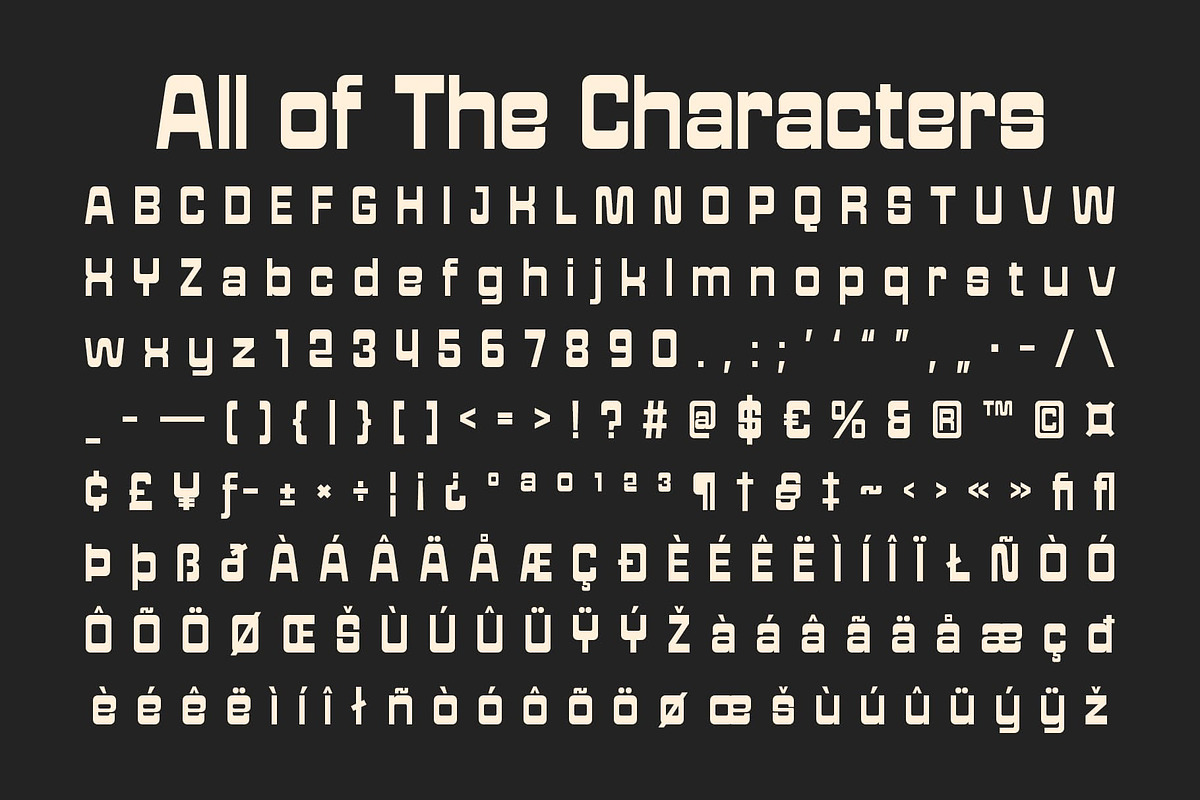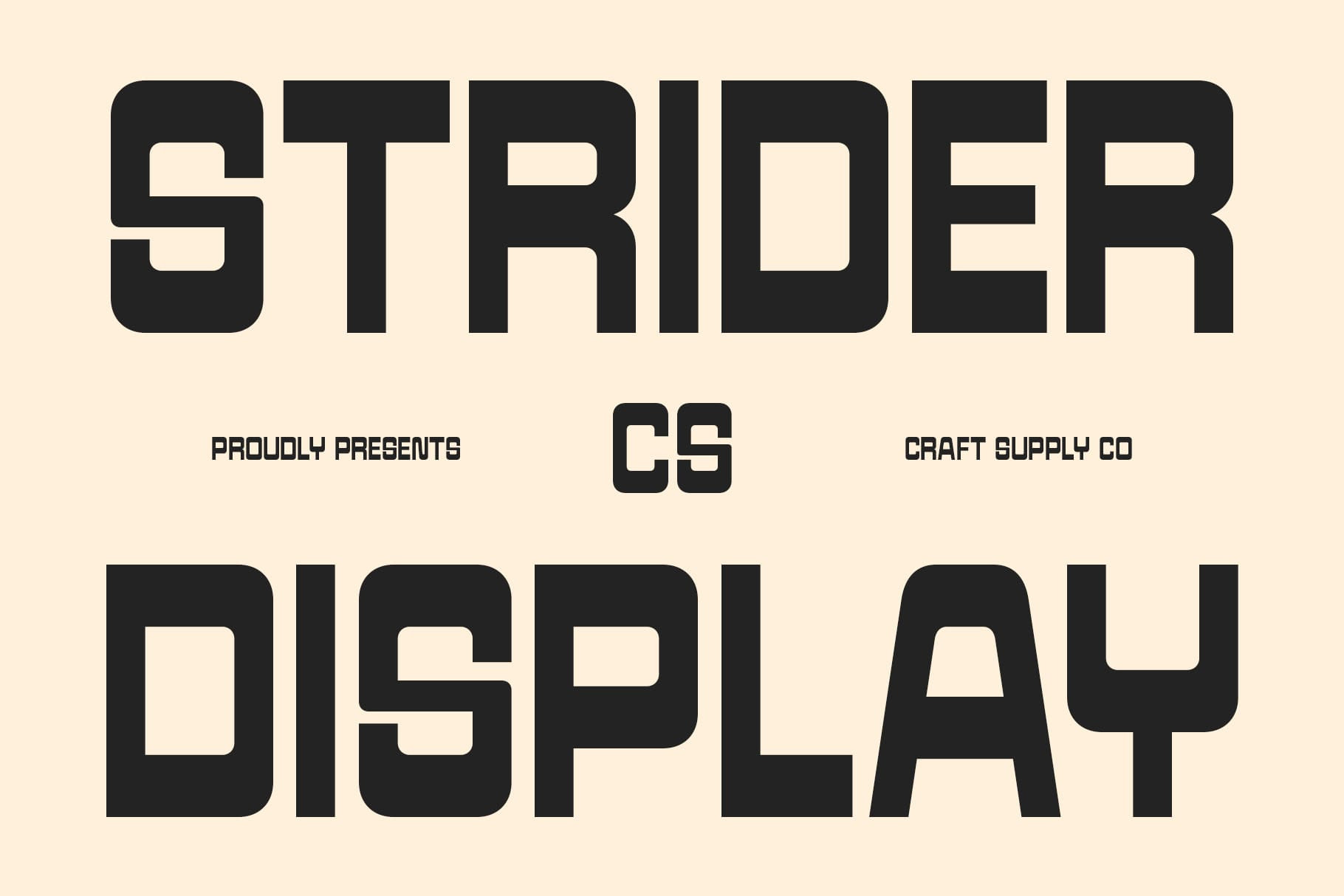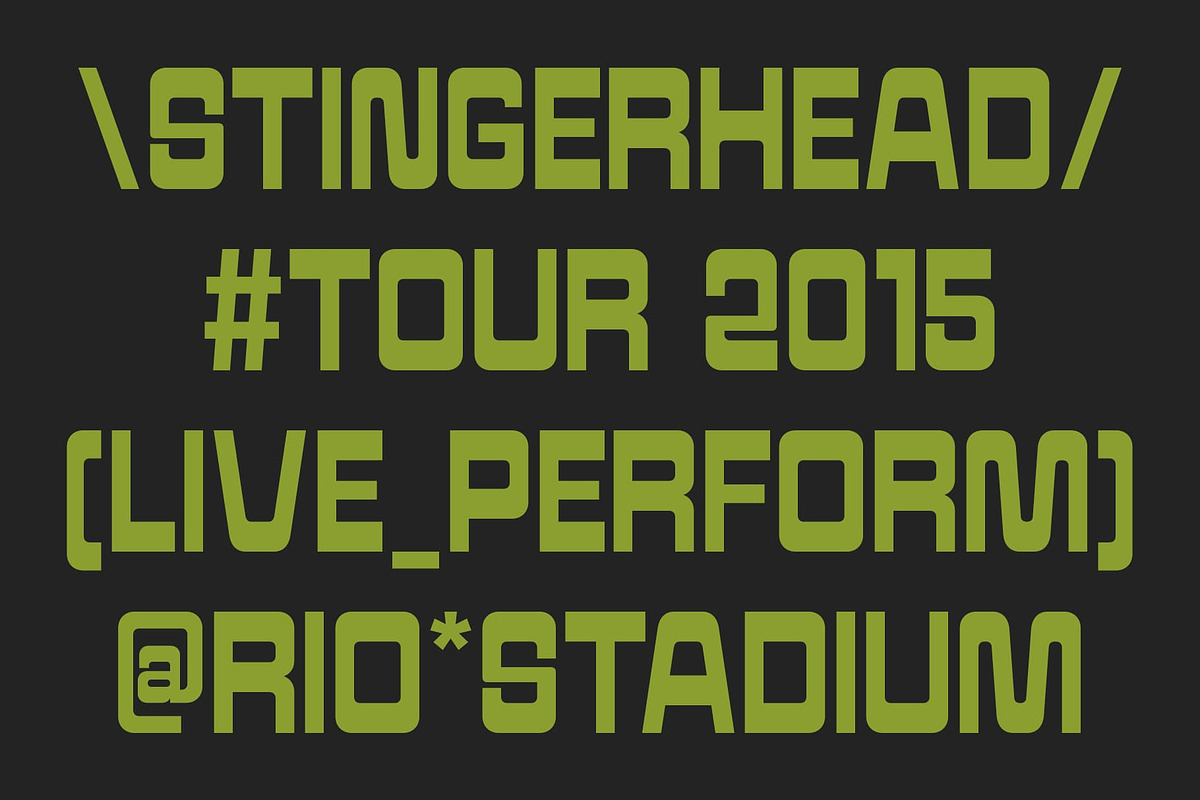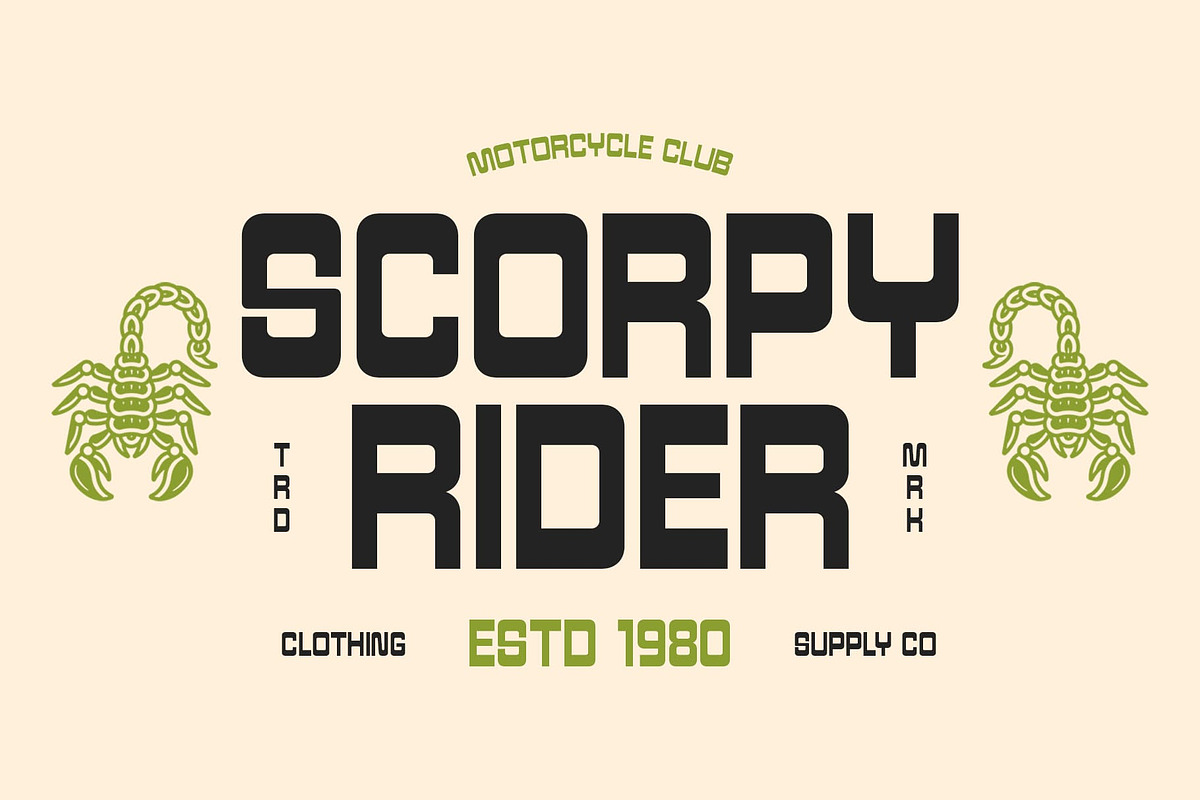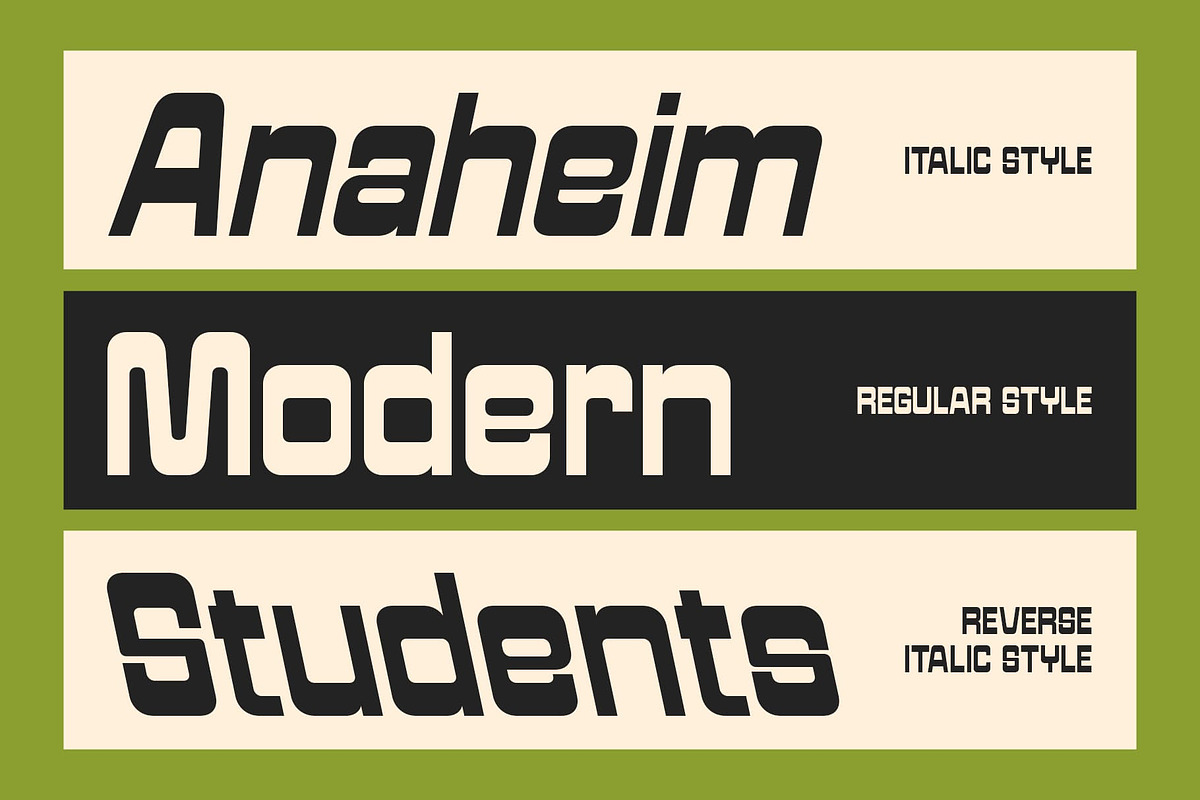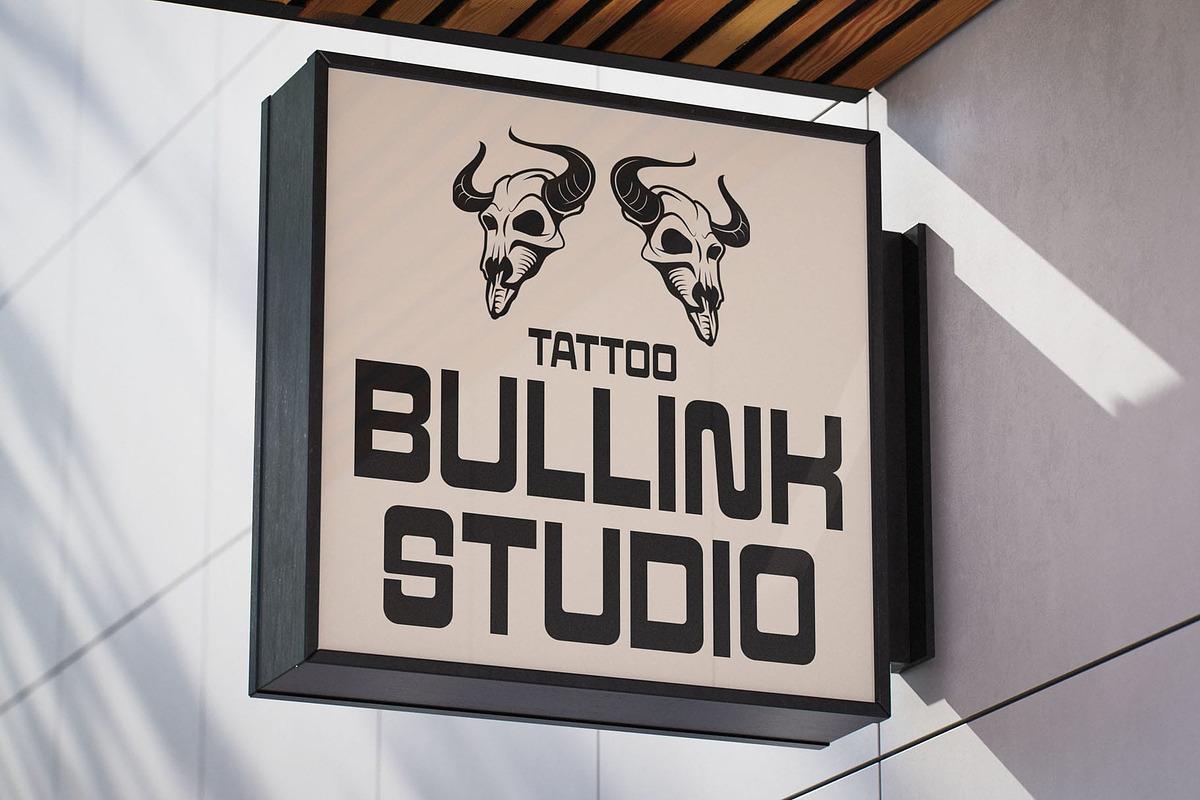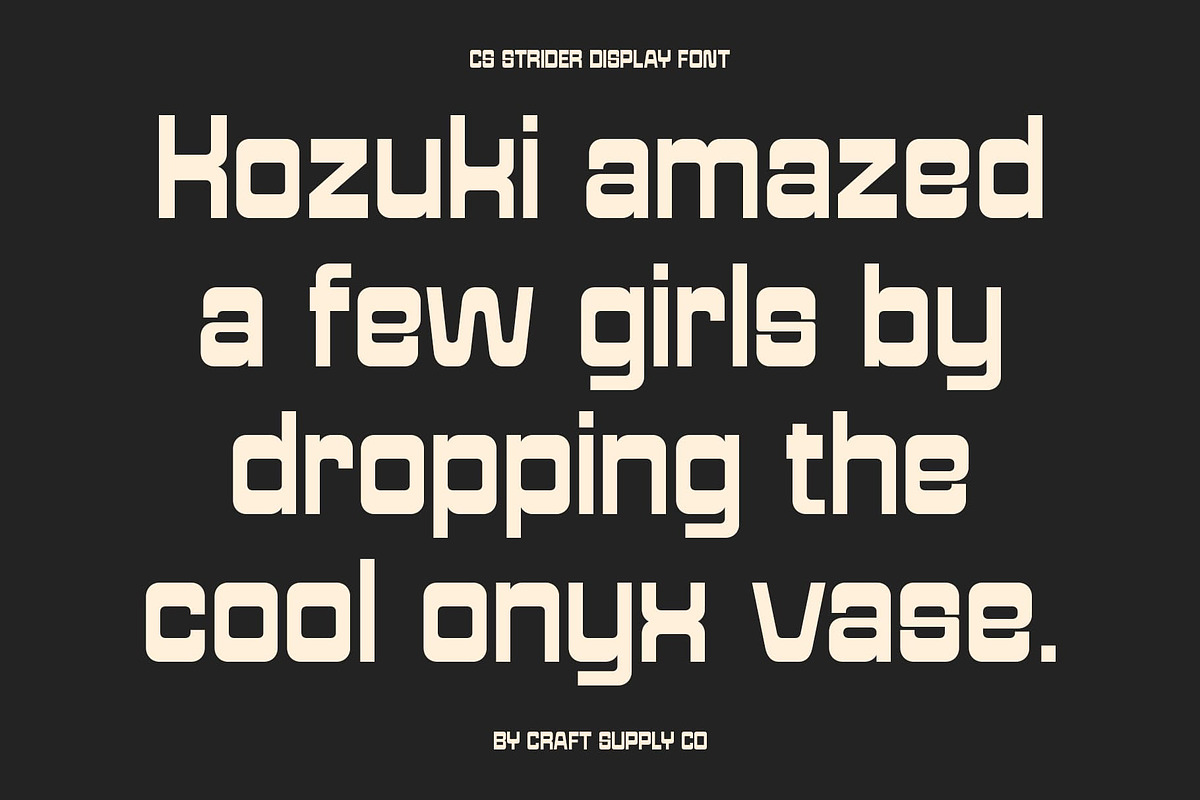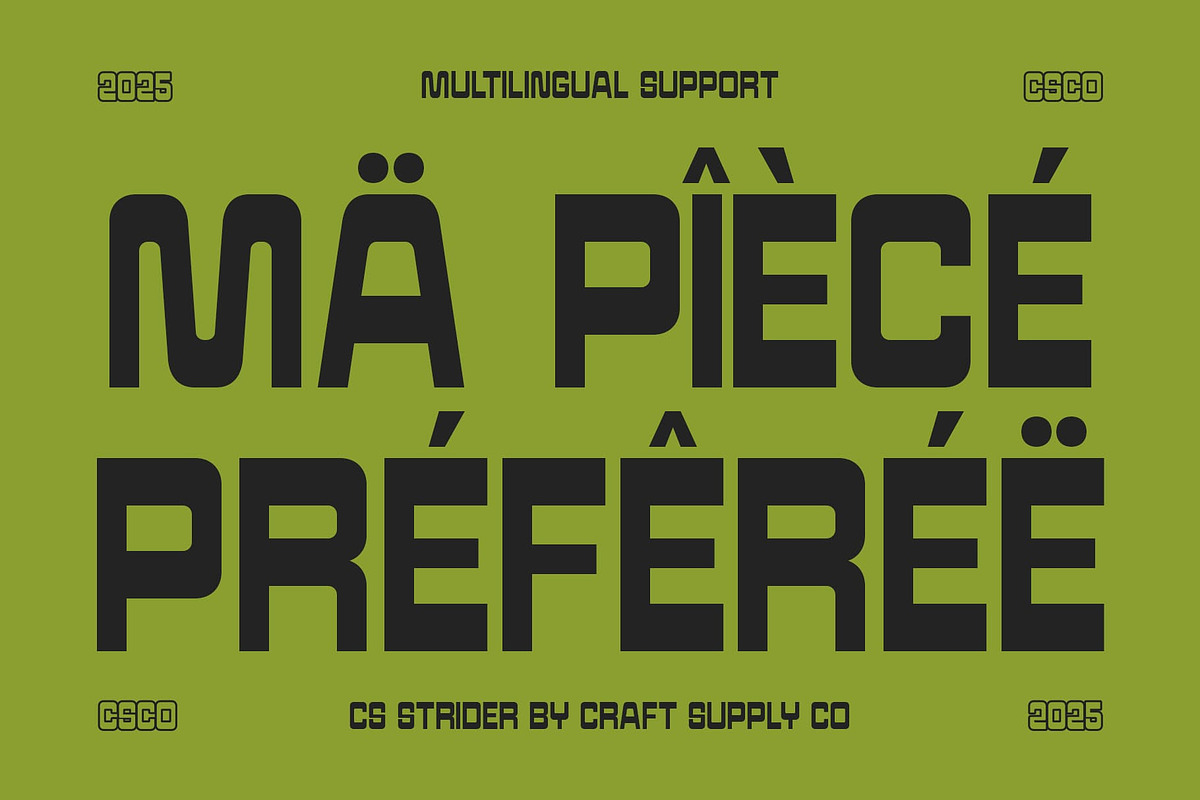
CS Strider – Reverse Contrast Font
CS Strider – Reverse Contrast Font: Where Retro Meets Modern Expression
Bold Reverse Contrast Design This is a reverse contrast display font that fuses vintage charm with modern sensibility. By inverting the traditional weight balance, it creates bold visual tension and a striking rhythm that instantly captures attention. Each letterform reflects confidence and individuality, making it a perfect choice for projects that demand both impact and originality.
Retro Aesthetics with a Contemporary Edge Inspired by classic design movements of the past, this font reimagines retro typography for the modern era. Its geometric structure and modular balance bring a nostalgic yet fresh look, ideal for creating visuals that celebrate heritage while embracing innovation.
Perfect for Distinctive Branding and Promotion With its strong personality and distinctive reverse contrast, this font commands attention in logos, posters, and promotional materials. It’s perfect for brands that want to convey creativity, strength, and a hint of rebellion. Whether for lifestyle branding, fashion campaigns, or editorial layouts, this font adds a bold and confident statement to your design.
Dynamic Versatility for Creative Projects Beyond its bold exterior, this font offers excellent adaptability across a range of design contexts. From typographic headlines to expressive branding compositions, it maintains clarity and consistency while showcasing character and flair. Perfect fusion of retro inspiration and modern innovation that ensures your designs stand out with distinction.